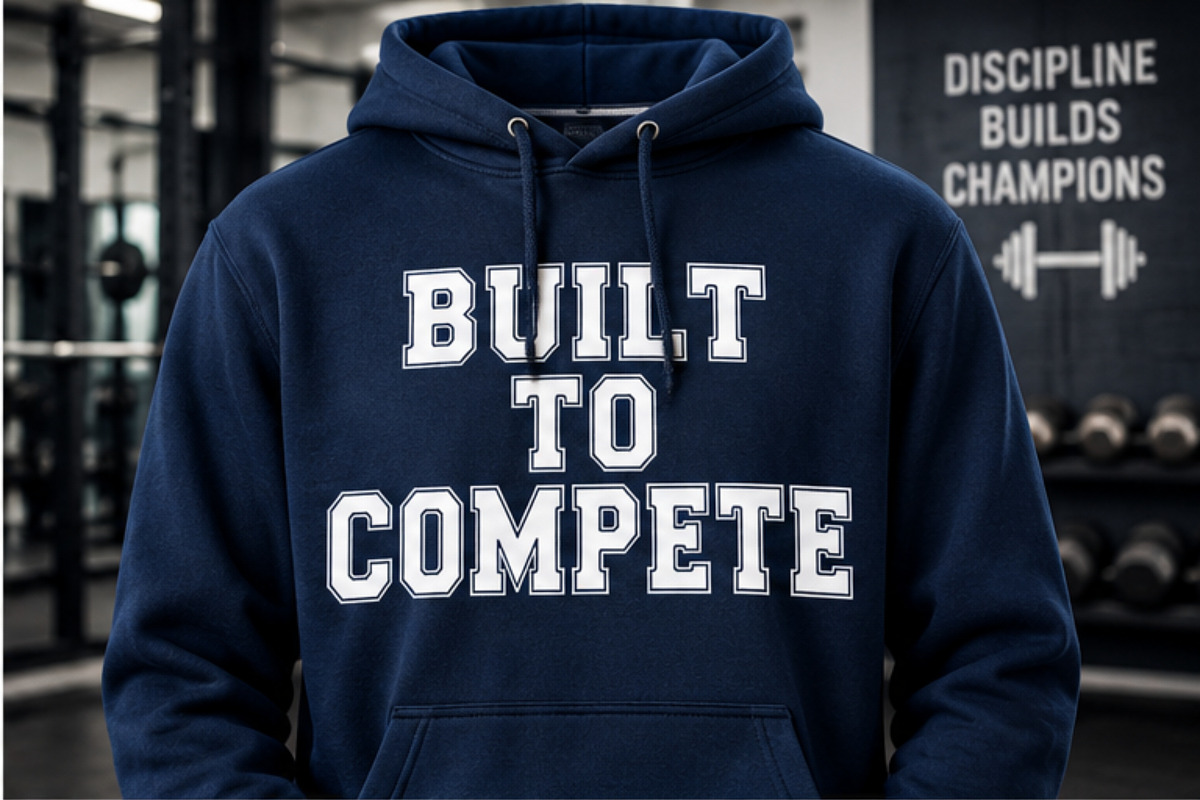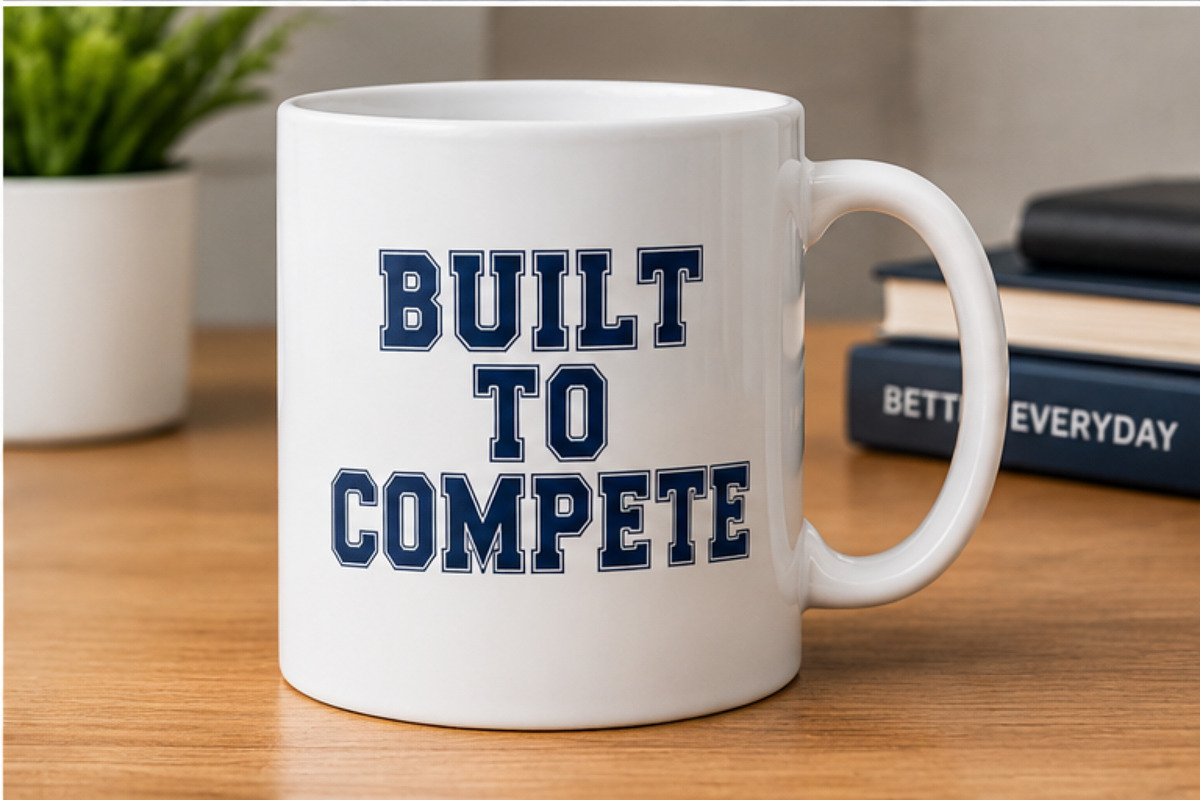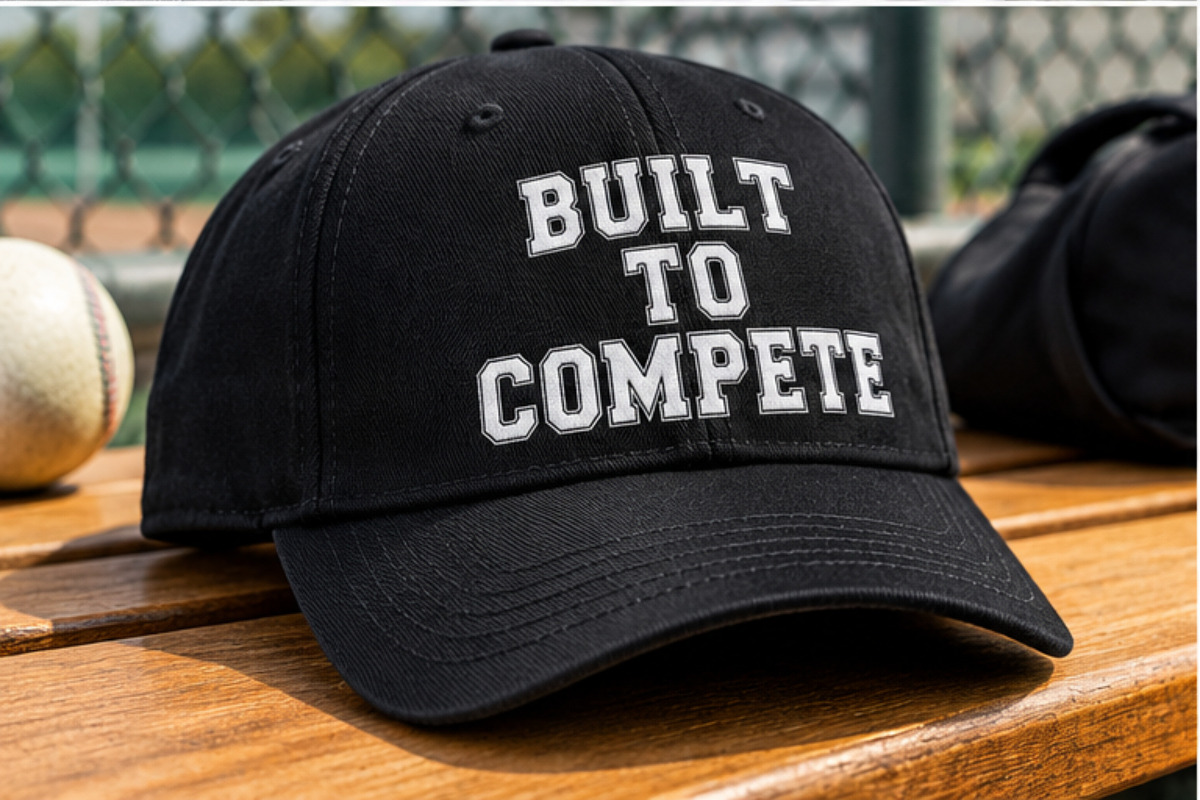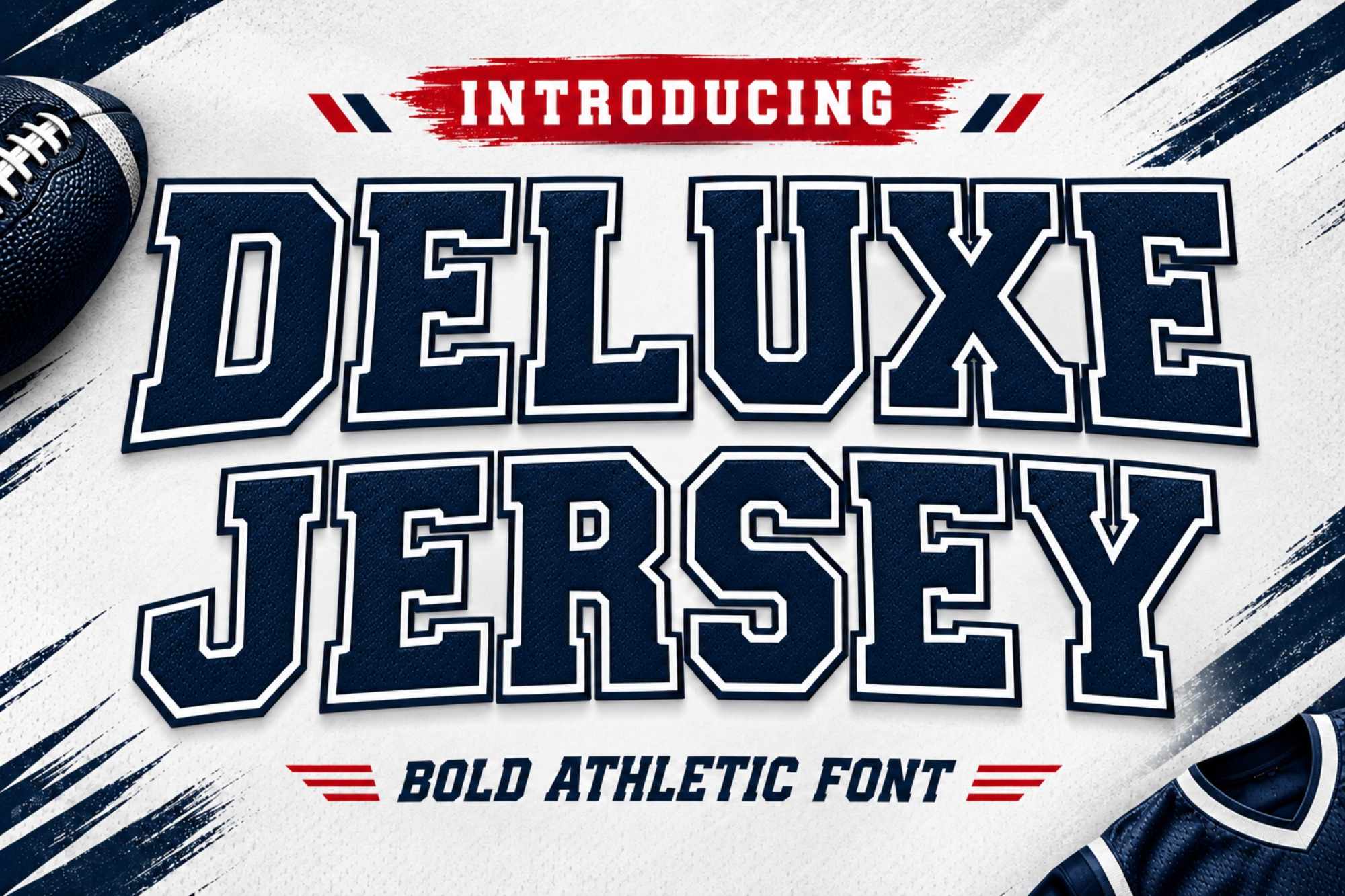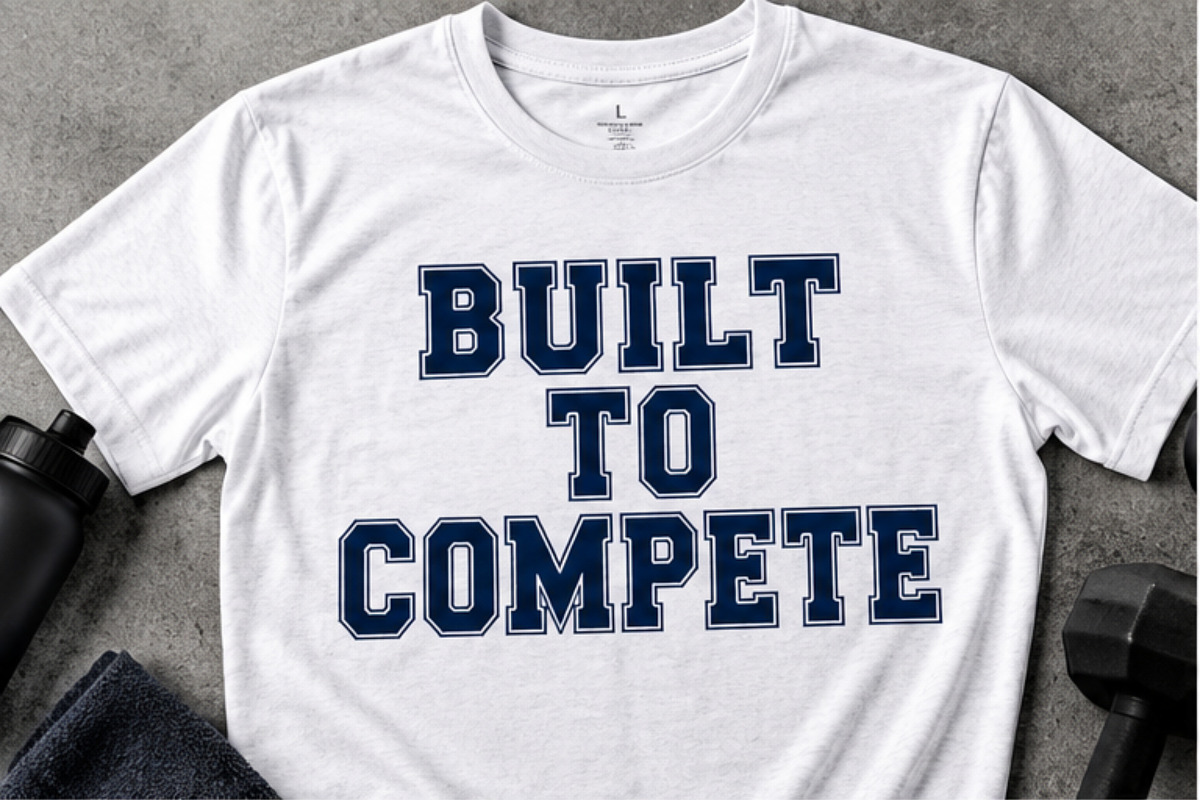
Deluxe Jersey - Bold Sporty Font
Bring a powerful athletic look to your designs with Deluxe Jersey! This bold collegiate font features strong block letters, sharp corners, classic varsity proportions, and distinctive outlined details that give your projects an authentic sportswear feel.
Perfect for creating team jerseys, sports logos, gym apparel, school designs, athletic branding, merchandise, posters, stickers, badges, and social media graphics. Deluxe Jersey works especially well for football, basketball, baseball, soccer, college sports, fitness, and championship-themed projects.